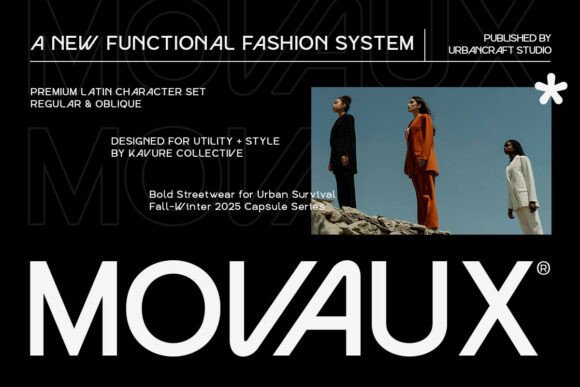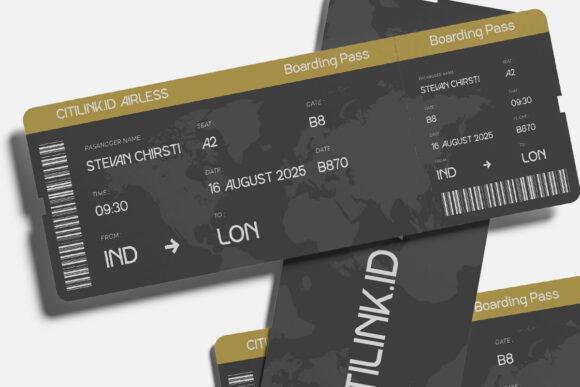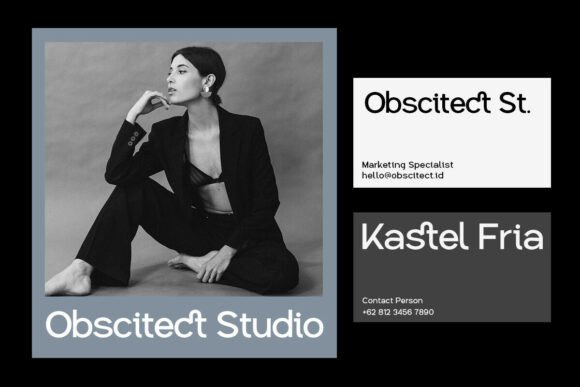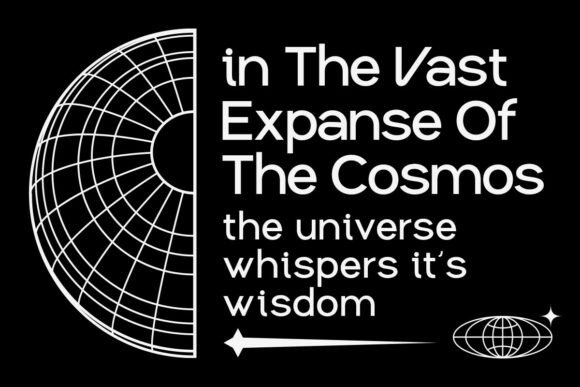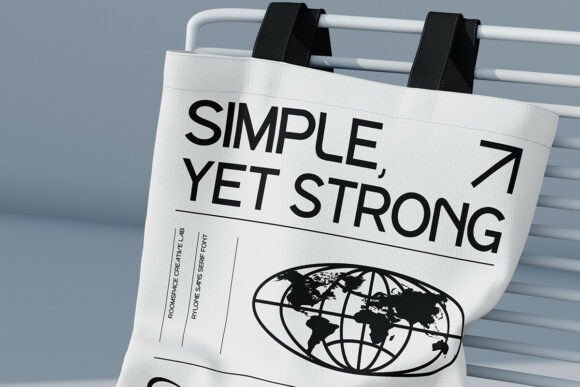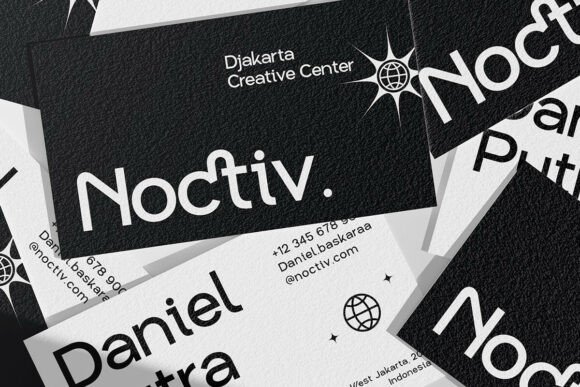
Introduction to Noreva Font
Noreva — a clean, confident sans serif font built for everyday design.
With bold curves and a smart geometric look, it brings clarity and modern appeal to everything from branding to packaging Whether you’re designing a tech startup logo, curating Instagram content, or building a minimalist website, Noreva works like a charm.
Key Features of Noreva Font
Why Choose Noreva Font?
Noreva Font offers exceptional quality and versatility, making it a valuable addition to your design toolkit. Whether you’re creating for personal projects or commercial use, Noreva Font delivers professional results.